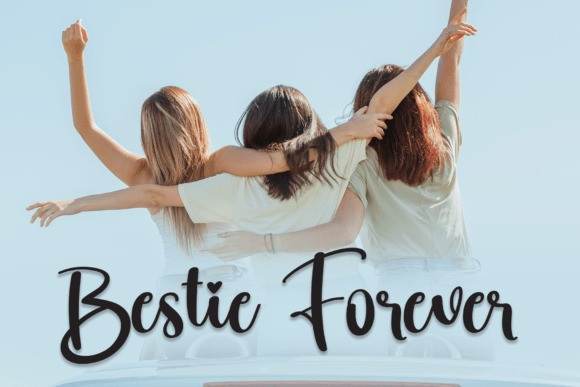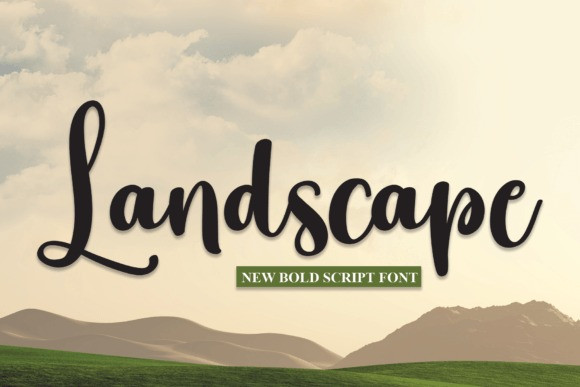
Landscape Script Font
Landscape Script Font, perfect for wall displays, wedding invitations, social media post logos, advertisements, product packaging, product designs, labels, photography, watermarks, invitations, stationery, and any project that requires a handwritten taste.